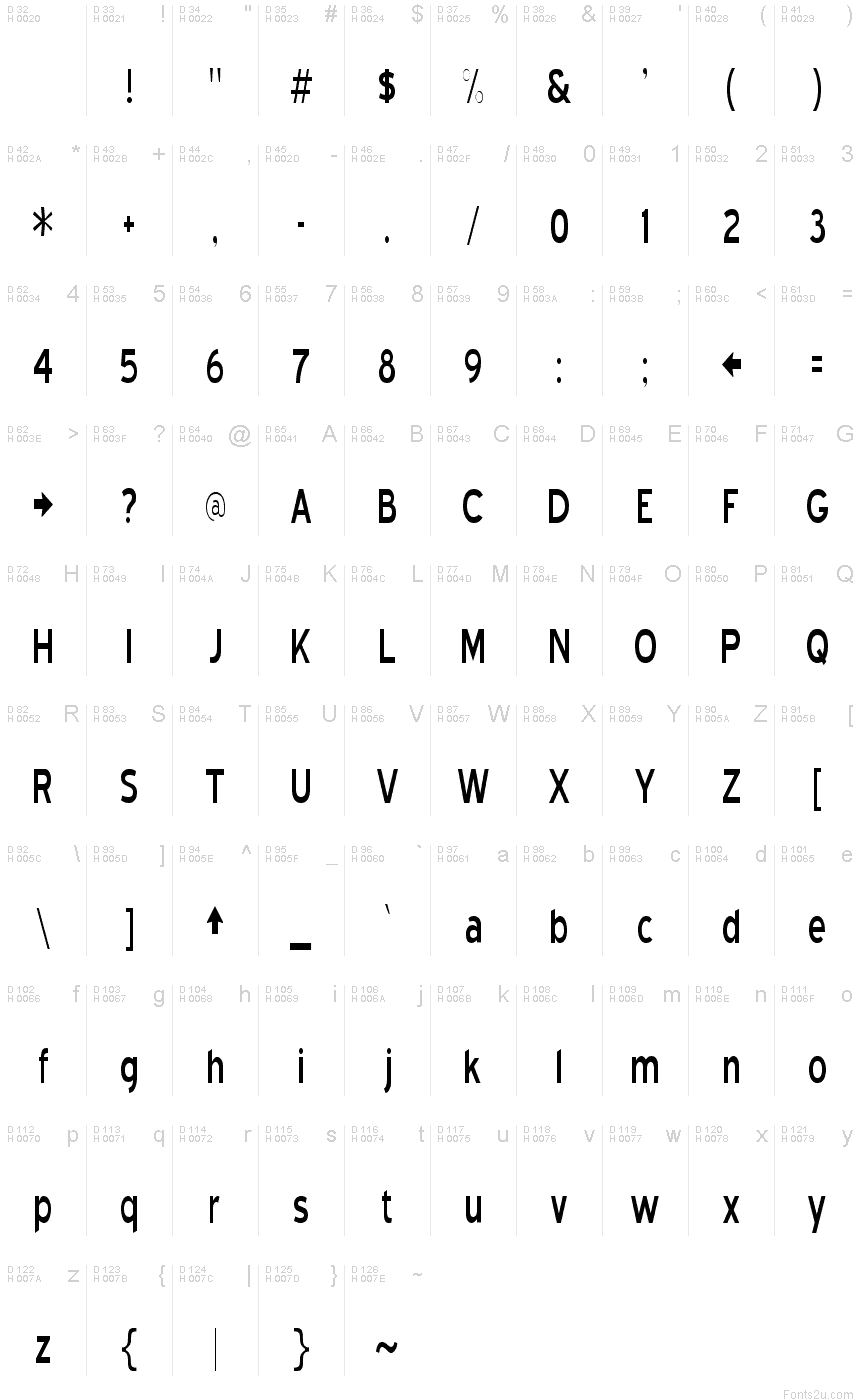
Blue Highway Condensed Regular
Blue Highway Condensed font by Ray Larabie is a free condensed sans serif font, and its tight, upright rhythm makes long words feel organized instead of crowded. In the Blue Highway Condensed family, the strokes stay crisp and sturdy, with clean curves that read fast—even when space is stingy on a layout.
Using Blue Highway Condensed, you’ll get clear results on wayfinding and signage, posters, tech UI labels, app headers, packaging callouts, sports graphics, and streetwear-style logos. Let it run a size or two larger than your body text, then pair it with a calmer wide sans (or a neutral serif) for contrast; this free font holds the headlines.